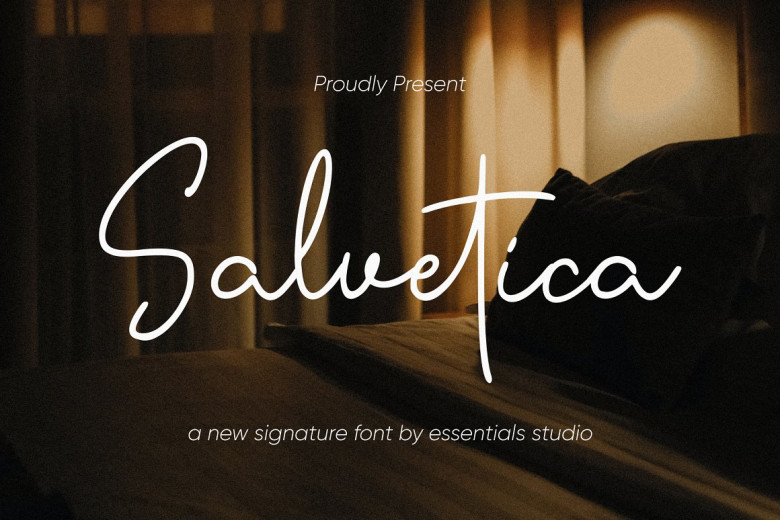
Salvetica Font
Salvetica is a monoline handwritten font with romantic flourishes that is ideal for magazine, social media or wedding applications, product packaging projects and branding initiatives.
Salvetica Monoline Script Font